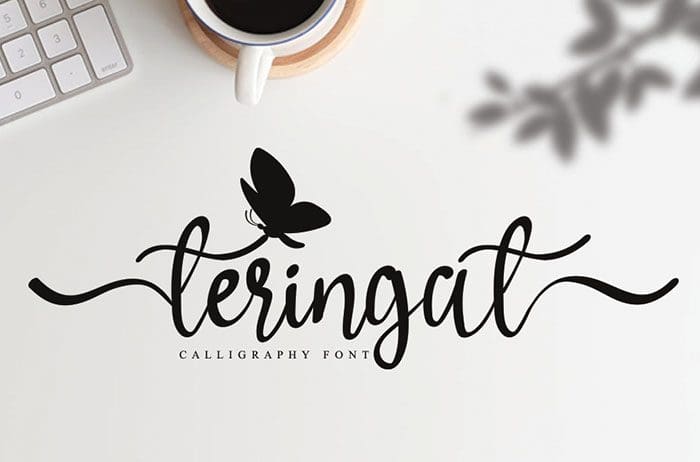
Teringat Calligraphy Font
Teringat calligraphy font feels equally charming and elegant. This stunning handwritten font is a stylish homage to classic calligraphy. It features a varying baseline, smooth lines, gorgeous glyphs and stunning alternates. Designed this font by Andika Studio. You can also search more freeĀ Calligraphy Fonts.